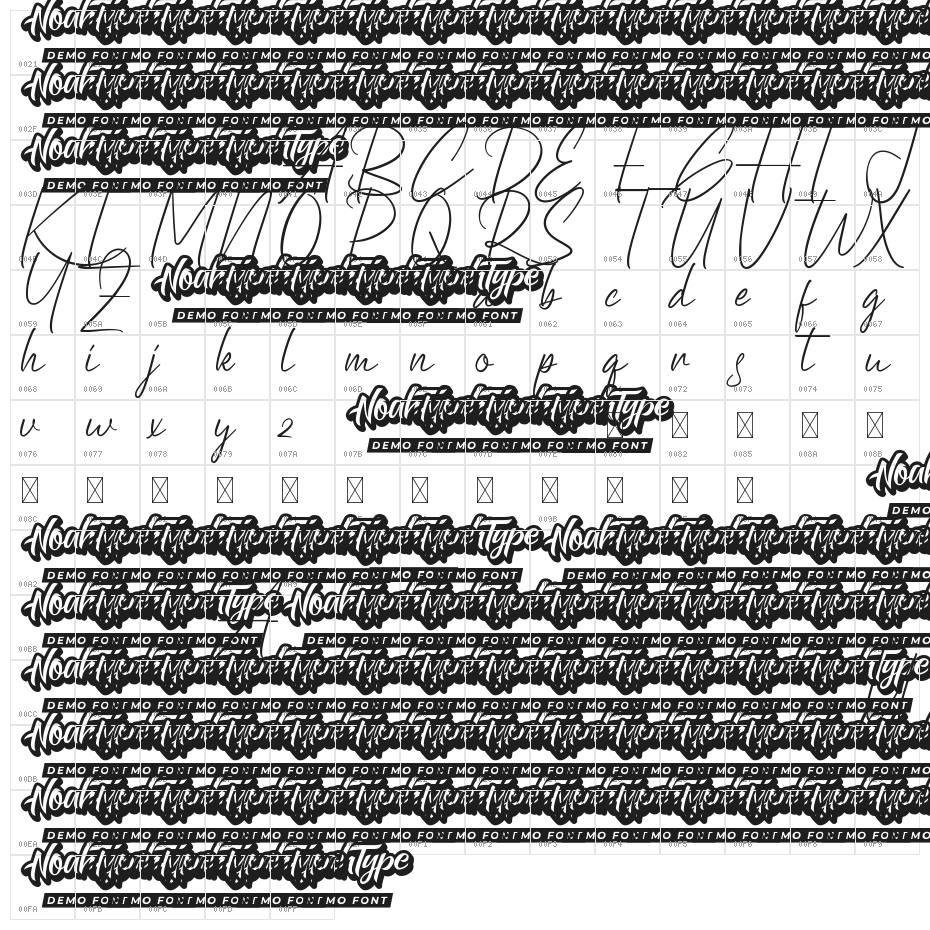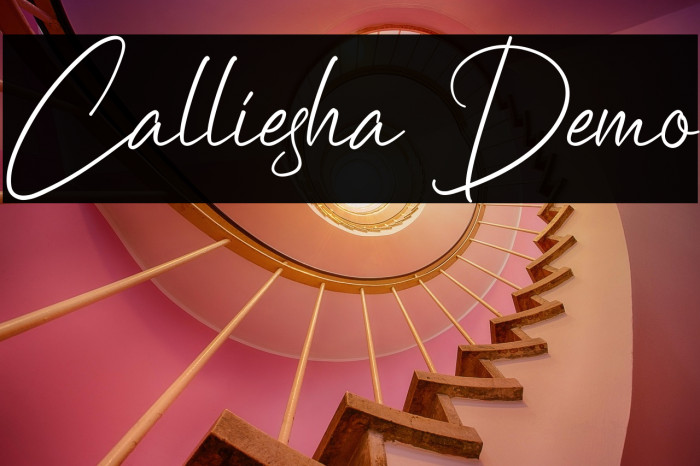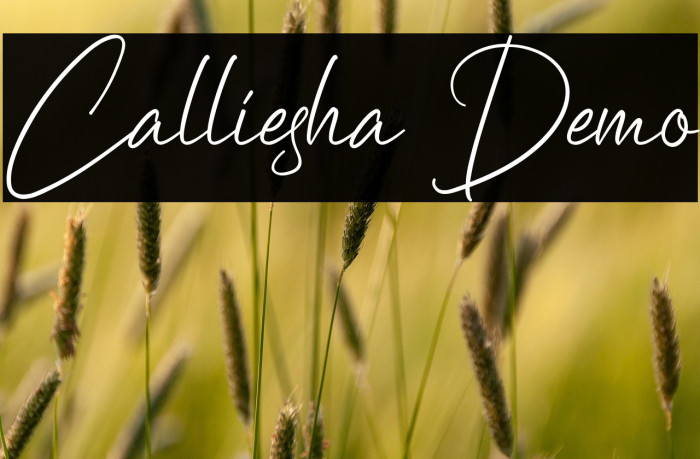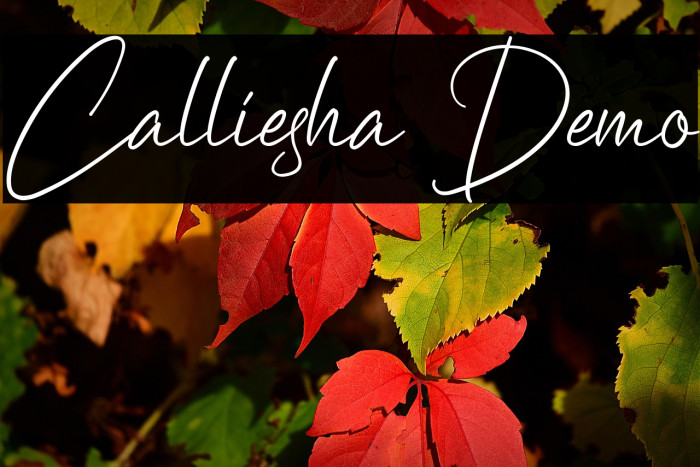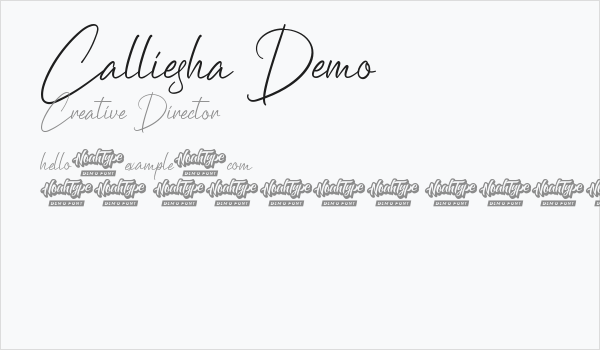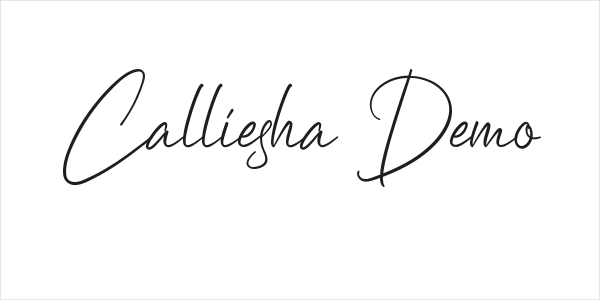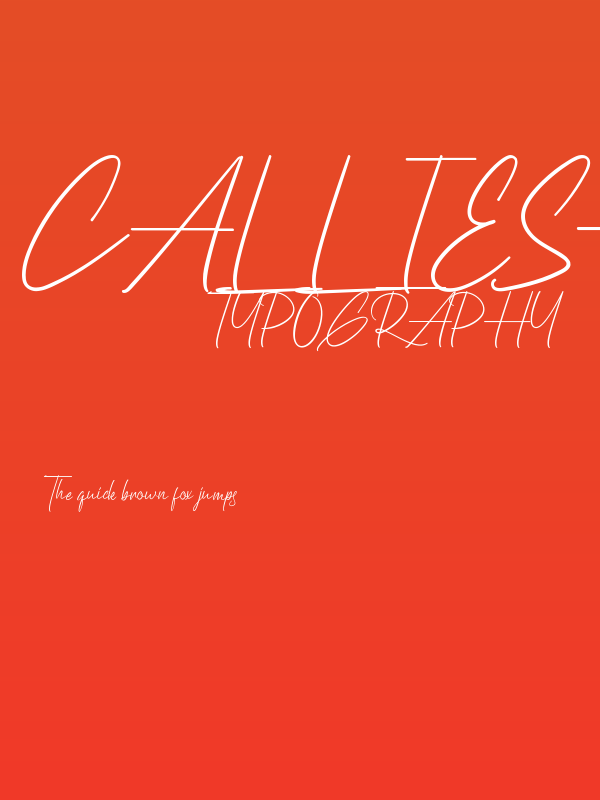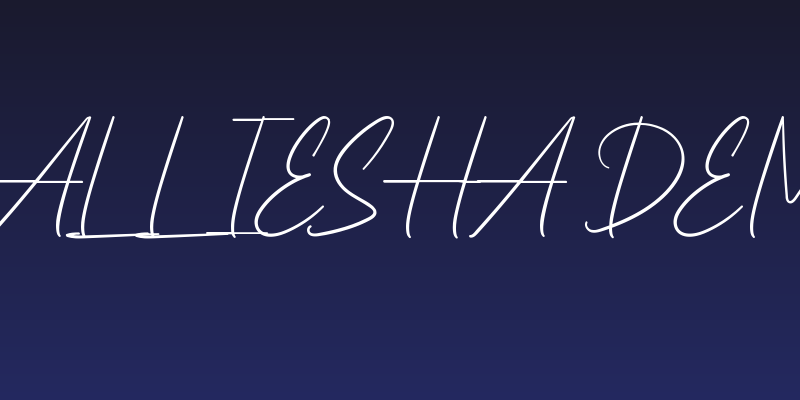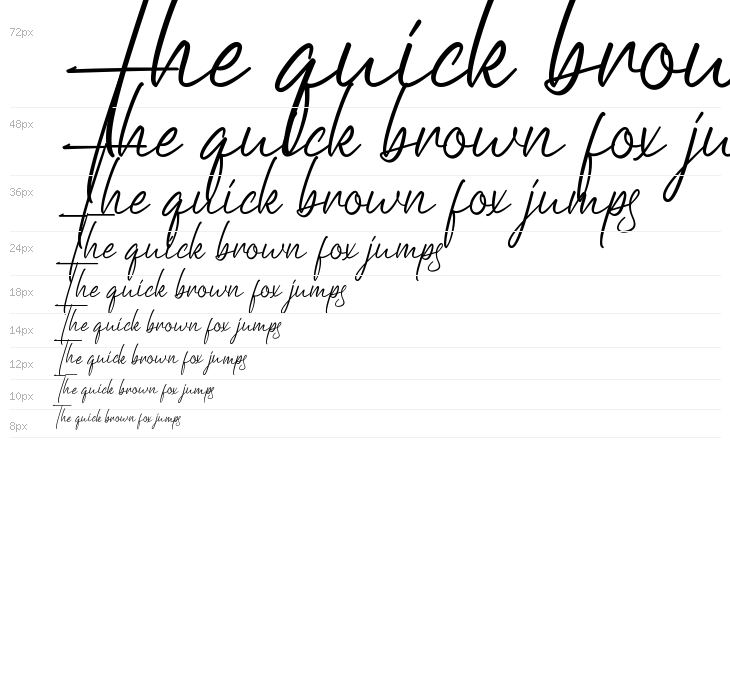
Calliesha Demo Font
Calliesha Demo Description
This font features a flowing, cursive style that exudes elegance and sophistication. The uppercase letters are tall and slender, with graceful curves and a slight slant that adds a dynamic feel. The lowercase letters are more compact, maintaining the same fluidity and connected strokes, which enhances readability while preserving the script's artistic flair. The numerals and special characters are designed to match the overall aesthetic, ensuring consistency across all text elements. This font is ideal for projects that require a touch of class and personality, such as invitations, branding, and editorial design.
| Use Case | Headlines, Invitations, Branding |
| Proposed Projects | Ideal for wedding invitations, branding, editorial design, and elegant signage. |